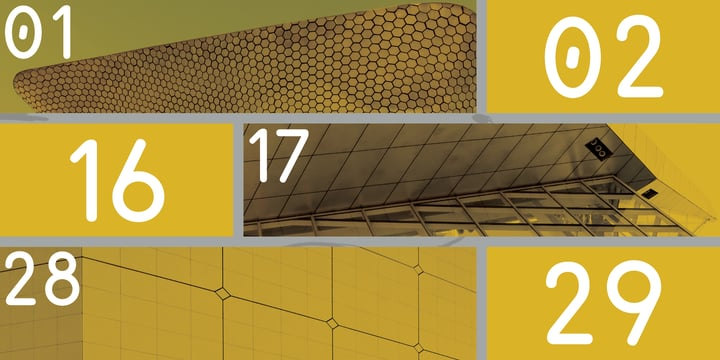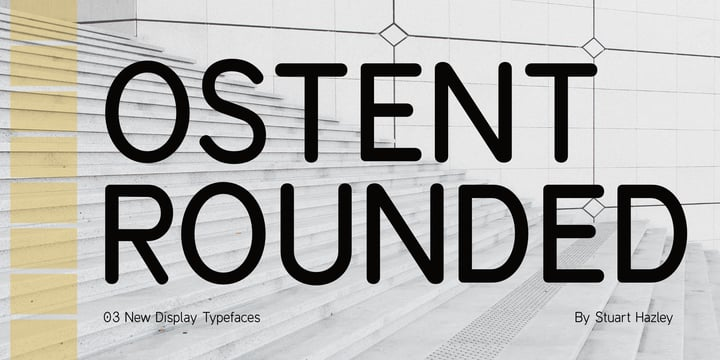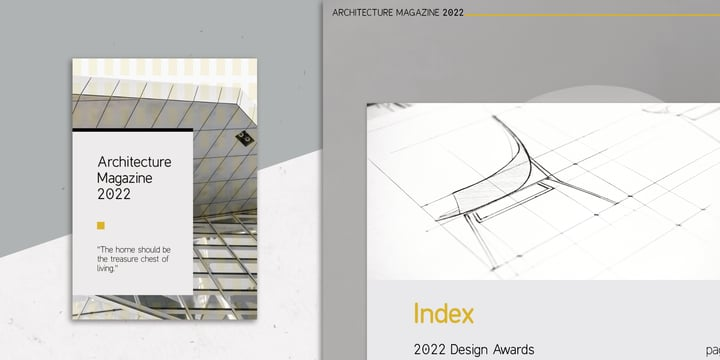
Ostent Rounded Font Family
Ostent Rounded Font FamilyOstent Rounded is based on my first release “Ostent’ which is a font family which is inspired by the early Din-Type fonts. In particular, Din 1451. This is reflected in Ostents simple and uncomplicated design, which results in creating a good sense of legibility. Each of the three weights has been carefully designed to work in conjunction with one another, or individually, complimenting other typefaces. Ostent can be used across a wide range of design mediums (both print and screen).